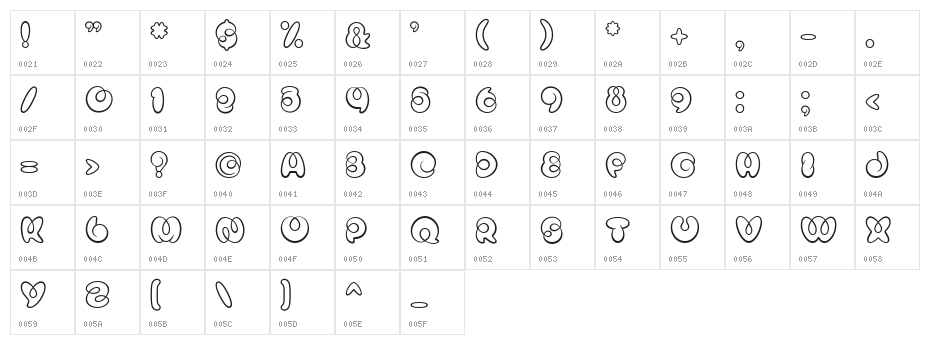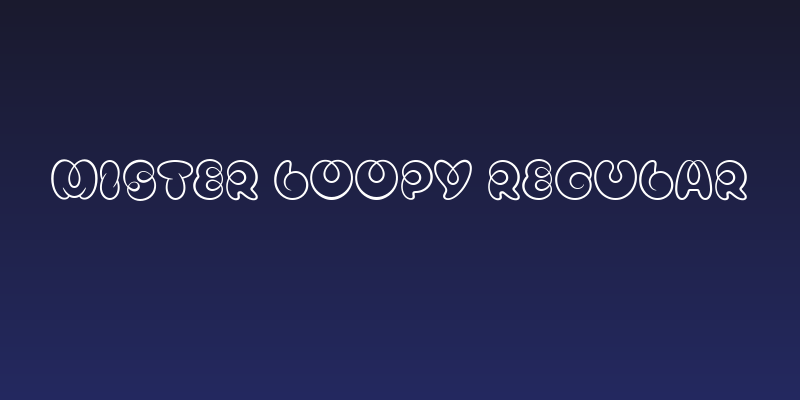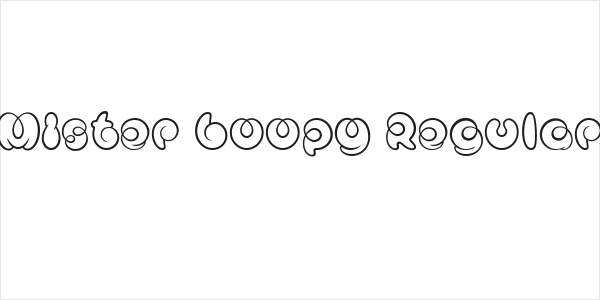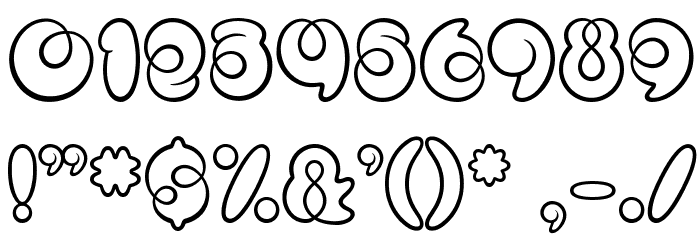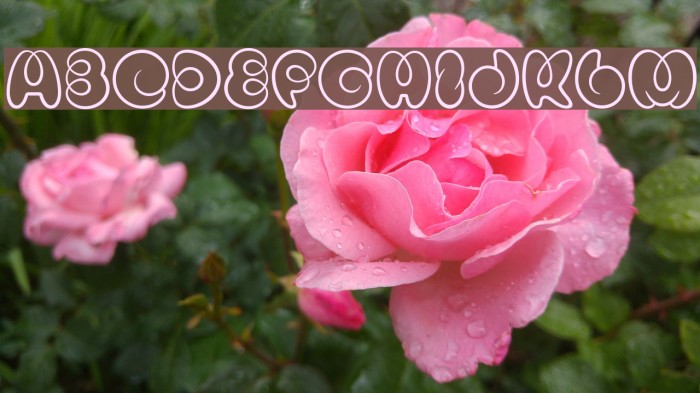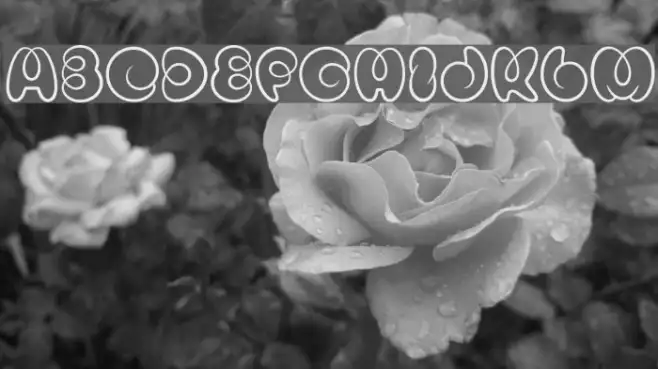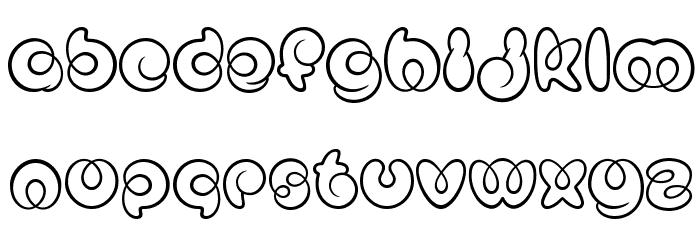
Mister Loopy Regular Font
Mister Loopy Regular Description
This playful and whimsical font features bold, rounded characters with a loopy, bubble-like appearance. Each letter is outlined, creating a hollow effect that adds to its fun and lively style. The font has a consistent thickness throughout, giving it a uniform look while maintaining its quirky charm. The characters are well-spaced, ensuring readability despite their unique design. This font is perfect for projects that require a touch of humor and creativity, making it ideal for children's books, playful branding, or any design that aims to capture a sense of joy and imagination.